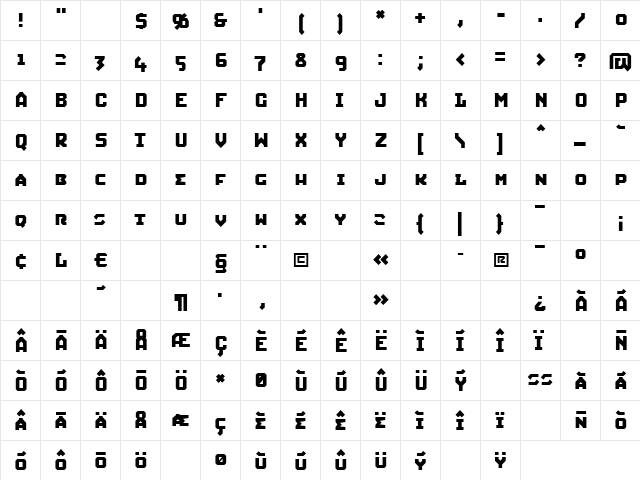
SquidSmallCaps Regular
Design Context for SquidSmallCaps Typeface
SquidSmallCaps is a composed and adaptable typeface that performs quietly and consistently across a wide range of design contexts.